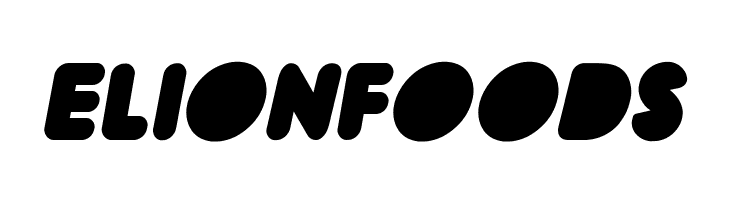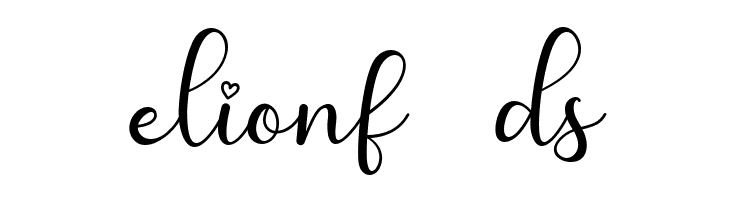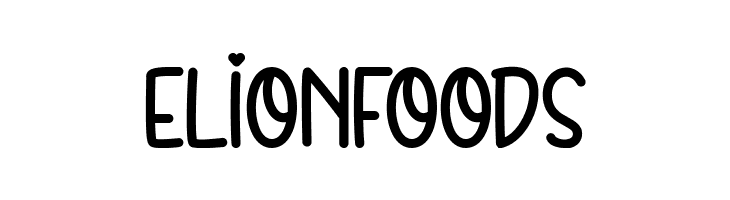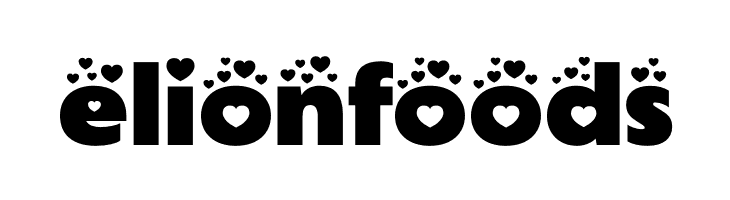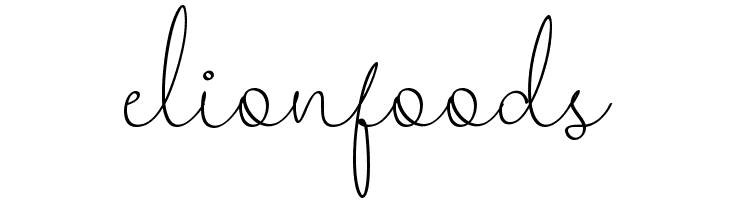
A bold, italic font with heart-shaped patterns for a playful and romantic look.
A playful, heart-filled decorative font perfect for romantic or fun themes.
A whimsical script font with elegant swirls and heart accents.
A graceful and elegant script typeface with flowing, interconnected strokes.
A playful handwritten font with heart-shaped dots and smooth, rounded letters.
A graceful, cursive script font with a natural, handwritten style.
A bold, playful font with heart-shaped cutouts for a whimsical touch.
An elegant, flowing script font with intricate loops and swashes, perfect for formal occasions.
A graceful and flowing script font with elegant, cursive strokes.
An elegant cursive script font with fluid, connected letters and graceful curves.